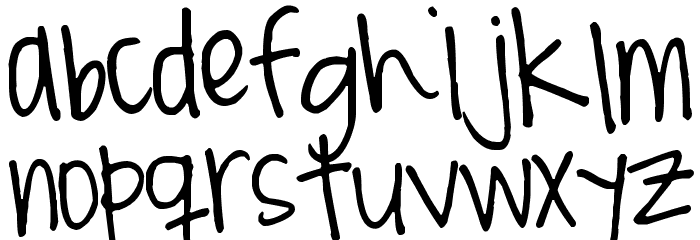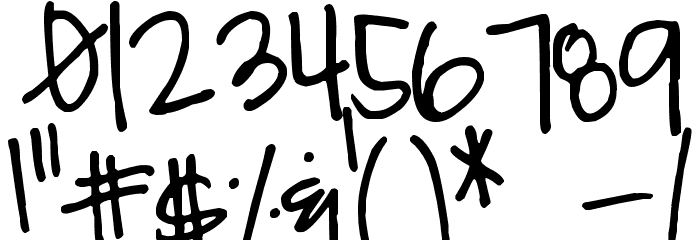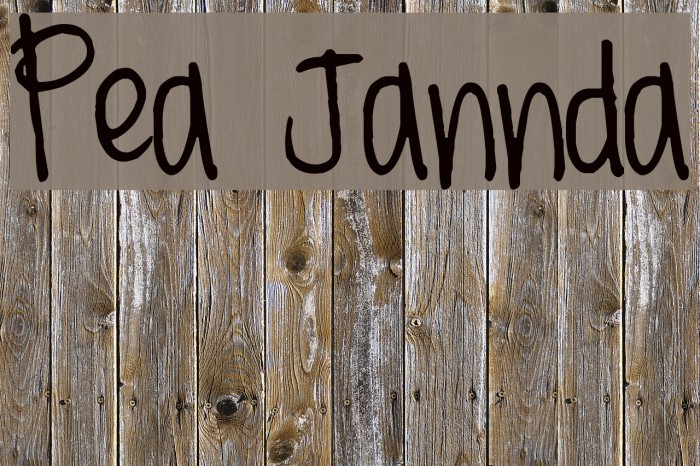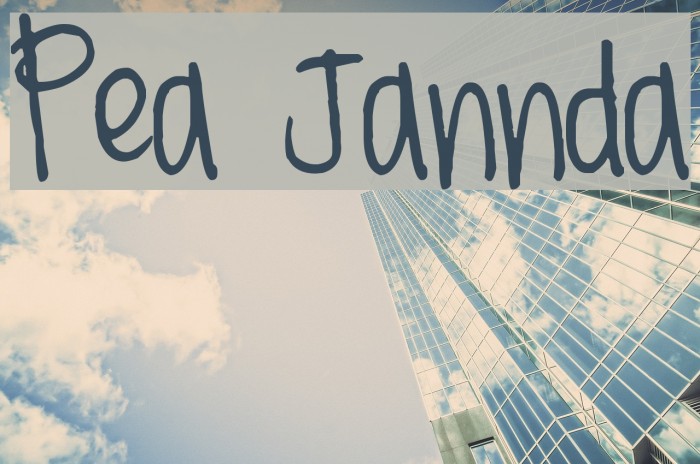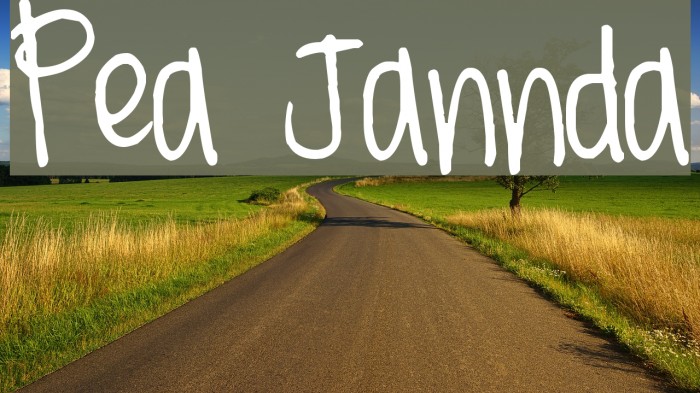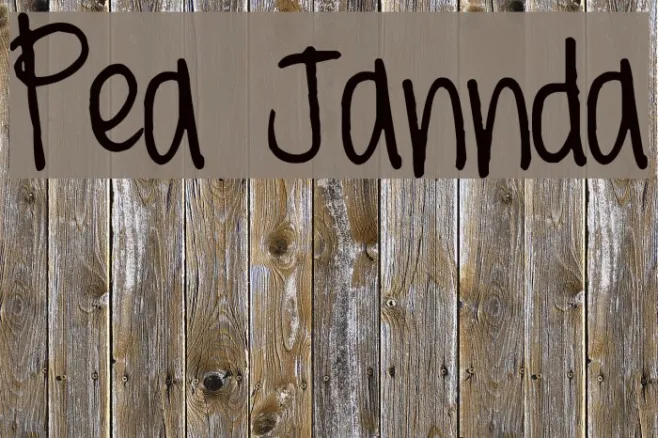
Pea Jannda Font
This font exudes a playful and casual handwritten style, characterized by its irregular, slightly uneven strokes that mimic the natural flow of handwriting. The letters are bold and have a consistent thickness, giving them a strong presence on the page. The uppercase and lowercase letters maintain a cohesive look, with rounded edges and a slight slant that adds to the informal feel. The numerals and special characters follow the same style, ensuring uniformity across all glyphs. This font is perfect for projects that require a personal touch, such as greeting cards, invitations, or casual branding.
A playful, handwritten font with bold, consistent strokes and a casual feel.
- Proposed Projects: Ideal for greeting cards, invitations, personal branding, and informal designs.
- Overall Style: Casual
- Use Case: Headlines, Logos, Informal Text